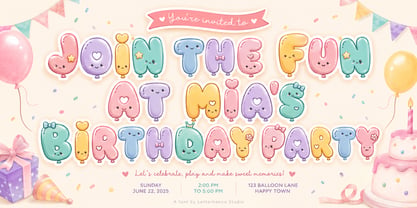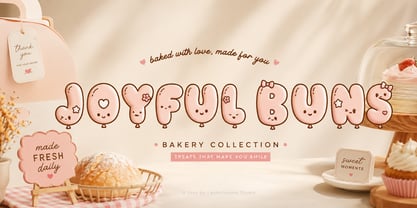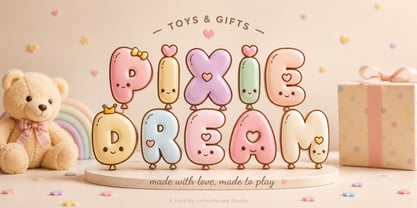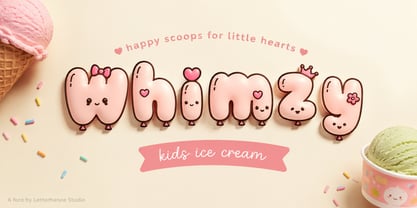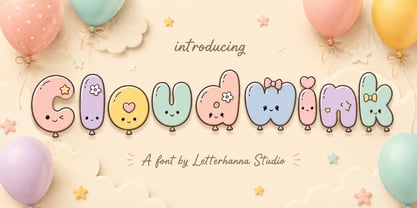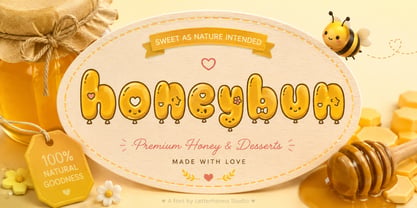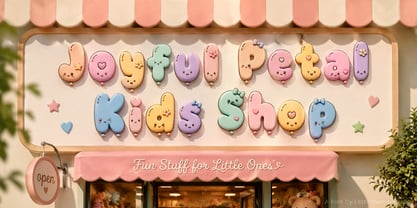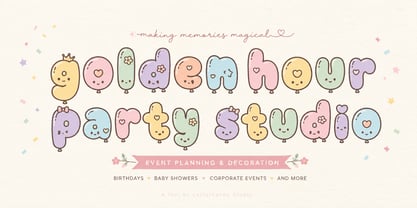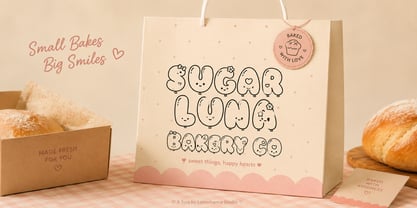
Cloudwink
Some fonts whisper. Cloudwink shouts hello with a wide, bubbly grin — and that's exactly the point. As a balloon font, every single letter looks like it was just inflated at a birthday party, tied off with a tiny knot, and set free to bob in the air. It's round, it's soft, it's impossible to look at without smiling.
Picture this: a summer fair, string lights overhead, and a wall of hand-tied balloons swaying gently in the breeze. Somewhere in that crowd, one balloon seems to wink back at you — a little glint of light on its glossy surface, a tiny bow tied around its string. That's the feeling Cloudwink was built to capture. It's a font born from that exact moment of childlike delight, when something as simple as a floating balloon can make a whole afternoon feel magical.
The shape and style
Cloudwink is unapologetically a chunky font. Its strokes are thick and rounded, with no sharp corners anywhere in sight — every letterform curves the way a balloon curves when it's filled just past comfortable. The result is a set of genuinely puffy letters that feel three-dimensional even on a flat screen, like you could reach out and press a fingertip into them and watch them spring back.
Look closely and you'll find small decorative touches tucked into the design: a crown perched on top of a letter, a bow cinched at the base of another, a star or a heart floating just beside a curve. Some letters even carry tiny closed-eye faces with soft blush marks, giving the whole alphabet a quiet, happy personality. It's this combination of oversized, rounded shapes and delicate hand-drawn details that makes Cloudwink read less like a typeface and more like a cast of tiny characters lined up in a row.
As a bubble letter font, Cloudwink also carries that unmistakable balloon-string detail at the base of each letter — a small looped line that grounds every glyph and reminds you exactly what inspired its shape. It's a small touch, but it's the one that turns "cute rounded font" into "font that genuinely looks like balloons."
The vibe
The overall feeling is warm, cheerful, and a little nostalgic — think birthday parties, nursery walls, ice cream stands, and confetti-covered invitations. Cloudwink doesn't try to be minimal or serious. It leans fully into softness and joy, making it a natural fit for anything aimed at children, celebrations, or brands that want to feel approachable rather than polished.
Because the letterforms are so full and rounded, Cloudwink works beautifully at large display sizes — headlines, logos, party banners, packaging labels — anywhere a font needs to carry personality on its own, without needing much else around it to feel complete.
Where Cloudwink shines
This balloon font was made for:
• Birthday invitations and party decor
• Kids' clothing and toy branding
• Bakery and dessert packaging
• Nursery prints and wall art
• Social media graphics for playful, feminine, or kid-focused brands
• Greeting cards and gift tags
Anywhere you need a chunky, puffy, instantly likeable typeface, Cloudwink brings the same warmth as a handful of balloons handed to you at the door.